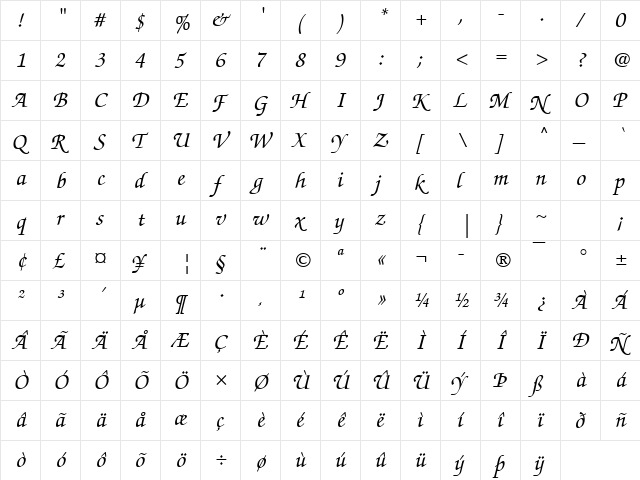
ITC Zapf Chancery Medium Italic
Design Context for ITC Zapf Chancery Typeface
ITC Zapf Chancery is a composed and adaptable typeface that performs quietly and consistently across a wide range of design contexts. The slanted form adds forward momentum and visual energy.
Pro Tip: Try ITC Zapf Chancery for annotation and caption copy alongside an upright companion — the contrast in angle creates a dynamic but ordered typographic system.